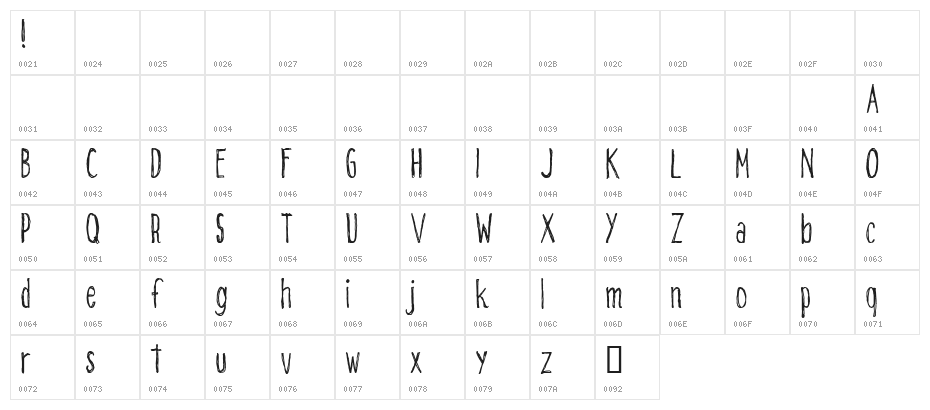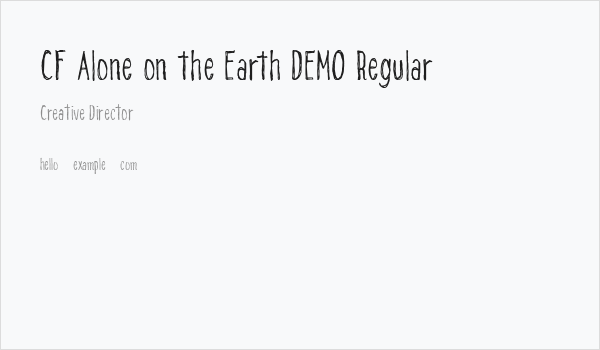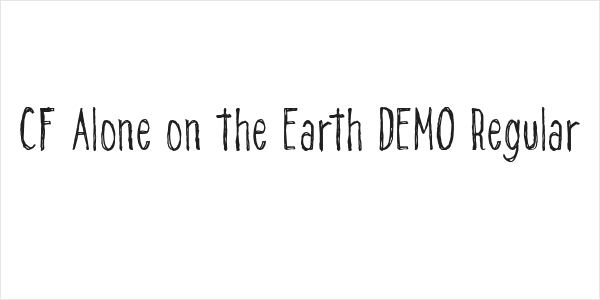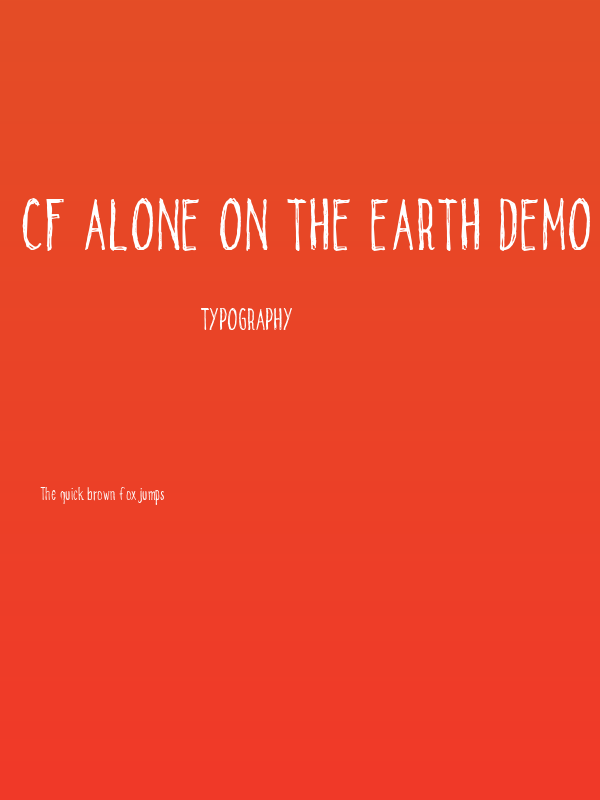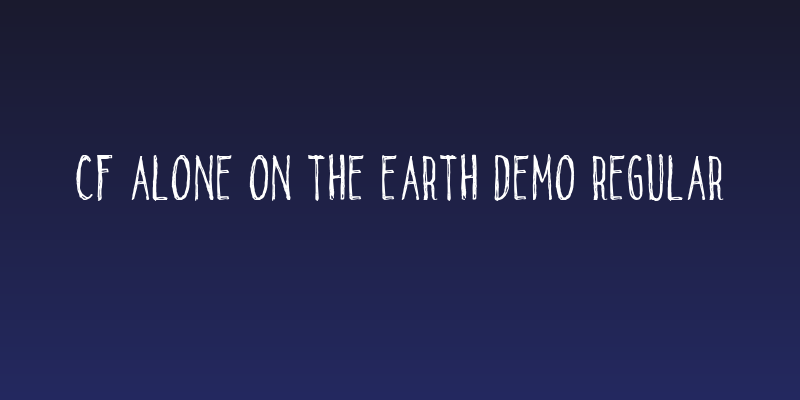
CF Alone on the Earth DEMO Regular Font
CF Alone on the Earth DEMO Regular Description
This font features a hand-drawn, rustic style with an organic and slightly distressed appearance. The characters have uneven strokes and a textured look, giving them a unique and artistic feel. The uppercase and lowercase letters maintain a consistent style, with elongated forms and a playful, informal vibe. The numerals and special characters follow the same aesthetic, ensuring a cohesive look across all text elements. This font's distinctive style makes it suitable for creative projects that require a personal touch.
| Use Case | Logos, Posters, Creative projects |
| Proposed Projects | Ideal for artistic projects, handmade crafts, posters, and branding that seeks a personal, informal touch. |